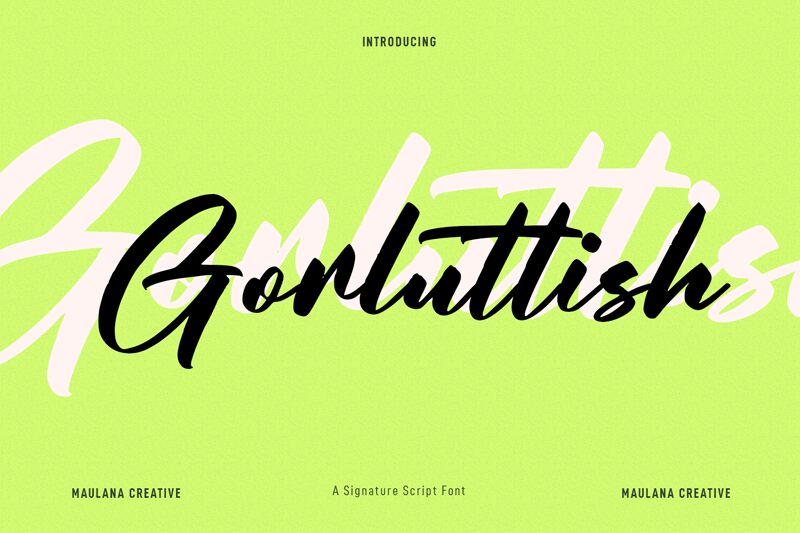
Gorluttish Free Font Regular
Gorluttish font created by Maulana Creative consists of chic characters inspired by cursive handwriting. Step into a world where cursive aesthetics take center stage and captivate your awareness. It is visually appealing and versatile to be used on a variety of print layouts to invoke gracefulness with its chic outlines. It will provide a touch of elegance, refinement, and style superiority to any designs that you show. Elegant yet contemporary.
This font is suitable for all wedding invitation needs such as invitation card designs, bridal-themed designs or greeting cards for weddings, vintage print businesses, labels and logos for posh shops/events/brands/designs etc., luxury products' labels, packaging design ideas like custom boxes - you name it!